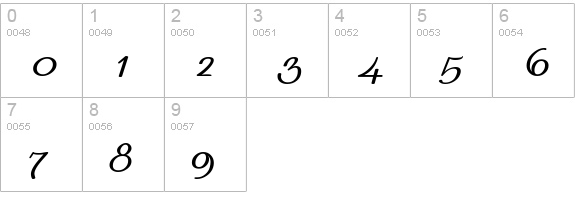
Ingriana Italic is a distinctive, italic variant in the Ingriana typeface family \xE2\x80\x94 well suited to design and typography projects.
Ingriana Italic is a stunning and elegant font that embodies a perfect blend of sophistication and modernity. Its graceful curves and stylish flourishes lend a touch of artistic charm to any design project. The italicized variation of Ingriana adds an extra layer of elegance, making it perfect for conveying a sense of refined beauty. This font is the epitome of versatility, as it effortlessly adapts to various design contexts. Whether you are working on a wedding invitation, a logo design, a magazine layout, or a branding project, Ingriana Italic will elevate your work to new heights of visual excellence. One of the best features of Ingriana Italic is that it is freely available to download at FontsMarket.com. This means that you can enhance your creative endeavors without any financial constraints. With just a few clicks, you can access this remarkable font and infuse your designs with a touch of sophistication, all while staying within your budget. Ingriana Italic is a truly remarkable typeface that combines elegance, versatility, and affordability. Its distinctive style and free availability make it a must-have for any designer or creative professional. So why wait? Download Ingriana Italic today from FontsMarket.com and unlock a world of endless design possibilities.